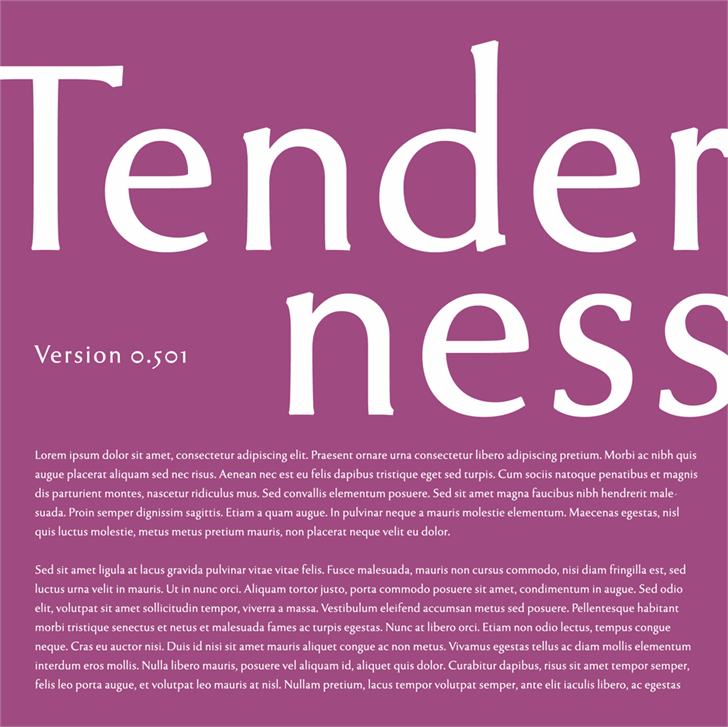
Today we're glad to feature this free tenderness font. Font Space has created this amazing and beautiful typeface. This is absolutely fancy font so you can easily make world-class designs.